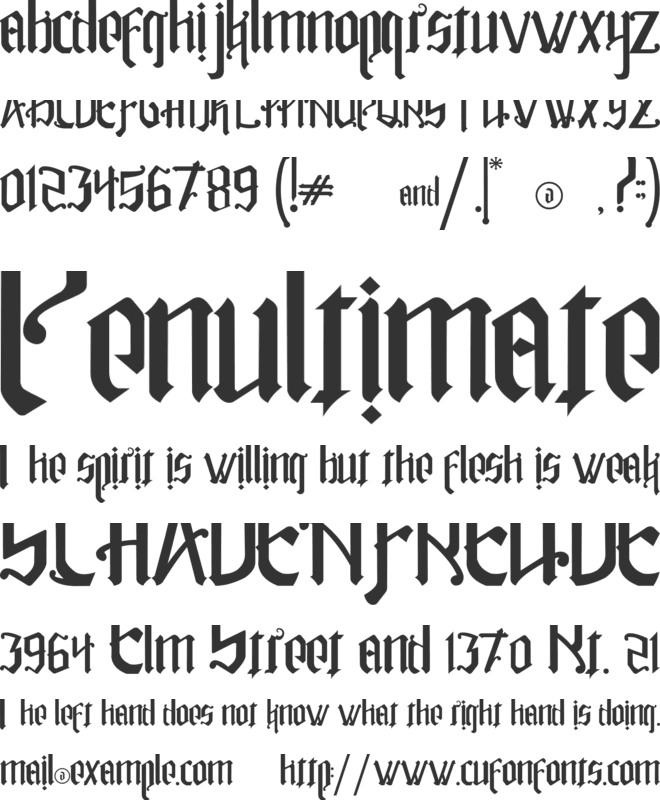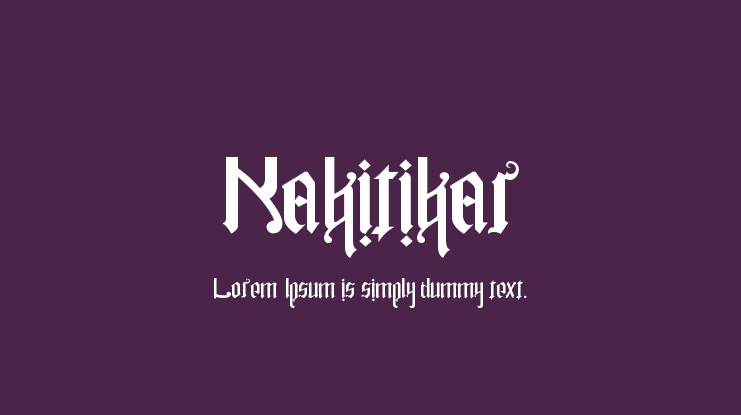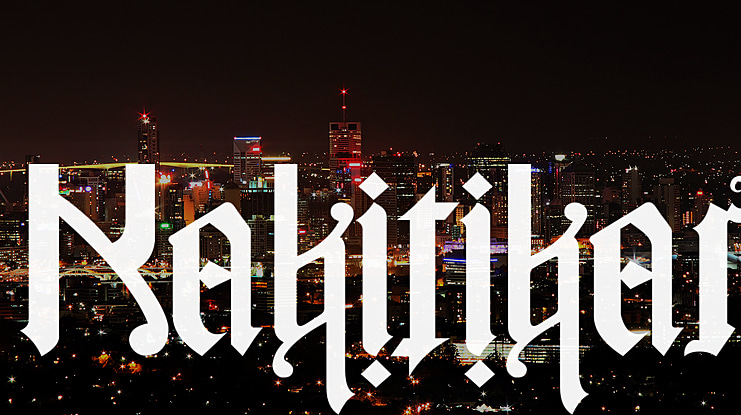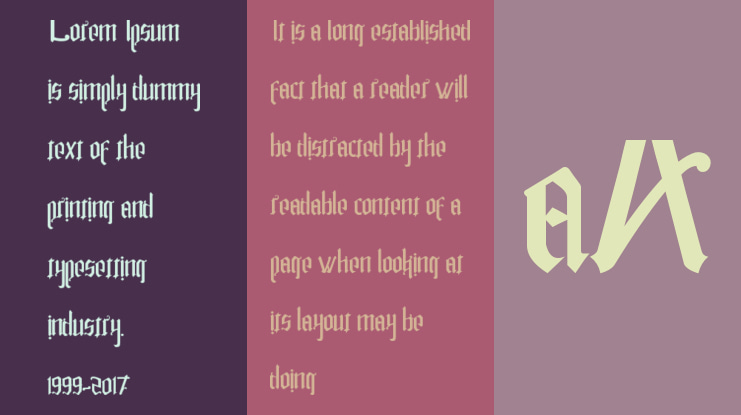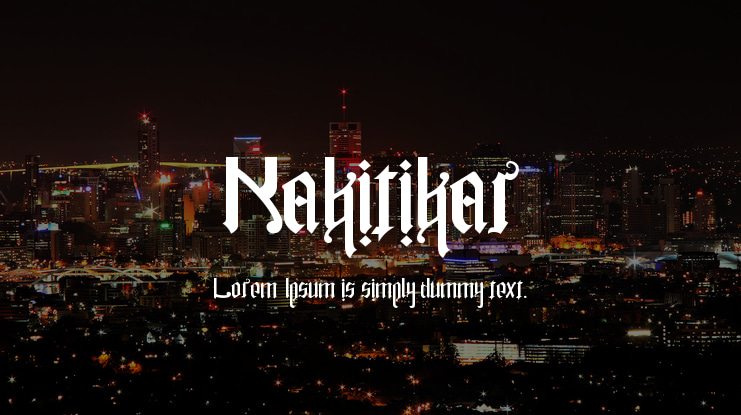
Rakitikar Font
Rakitikar font , emphasizing each sentence perfect for , poster, logo, magazine, cover, banner, tshirt and headers, or even large-scale artwork.